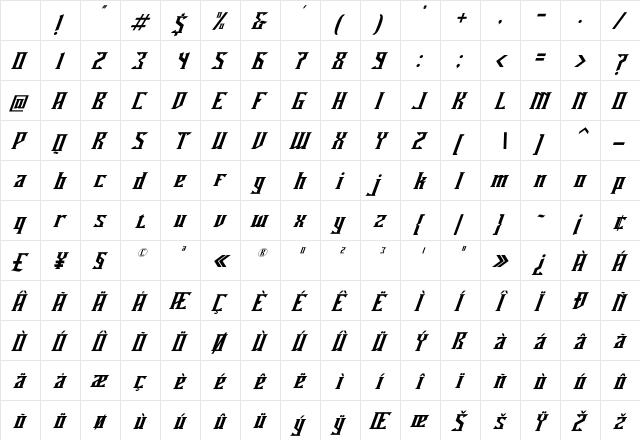
Complete Miles hunt Clean Italic Regular glyph index. Displaying only characters natively supported by Miles hunt Clean Italic Regular font.
Miles hunt Clean Italic is a composed and adaptable typeface that performs quietly and consistently across a wide range of design contexts. The slanted form adds forward momentum and visual energy.